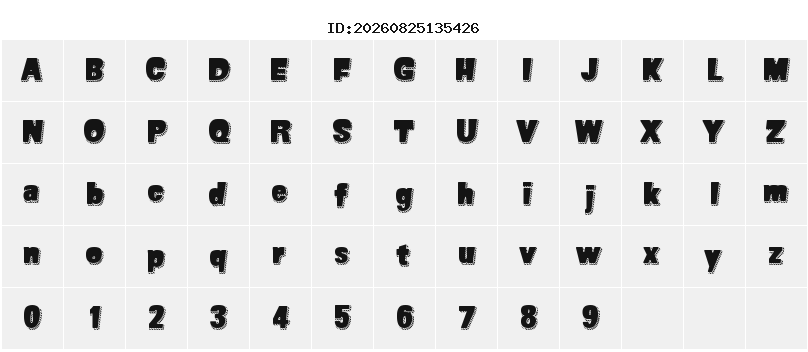
• Font Name: SUPER SEVEN Shadowed Demo
• Full Font Name: SUPER SEVEN Shadowed Demo
• Version: Version 1.00 July 9, 2015, initial release
• Manufacturer: StudioTypo
About SUPER SEVEN Shadowed Demo.otf
SUPER SEVEN Shadowed Demo.otf is a modern, elegant sans-serif font designed for ultimate readability and visual harmony. Perfect for branding, headlines, web design, and print materials.